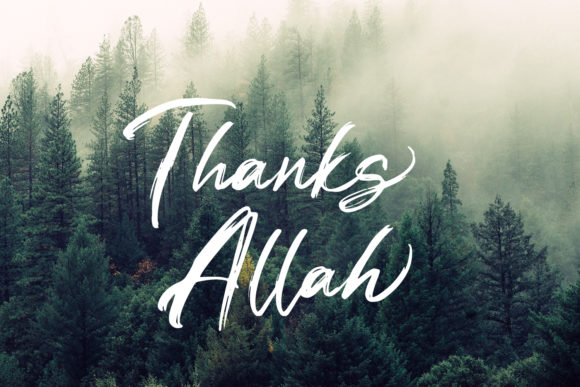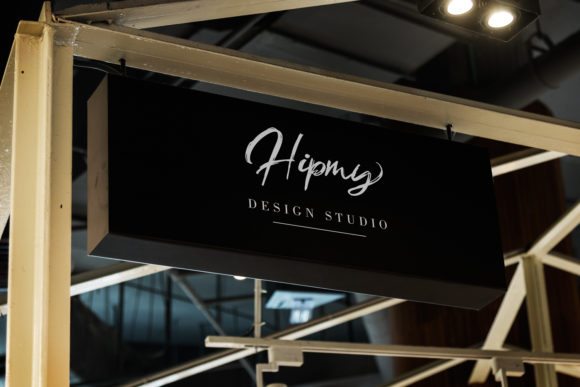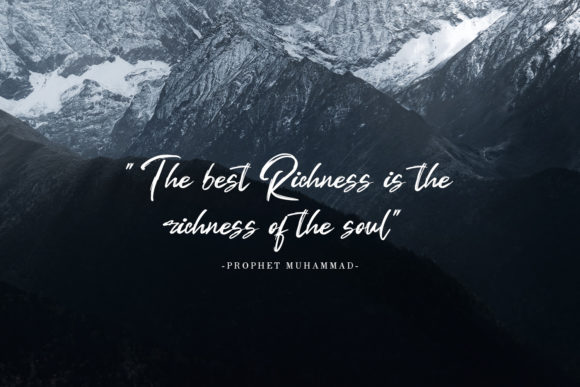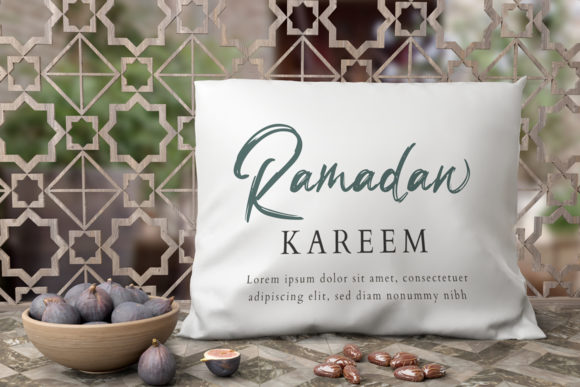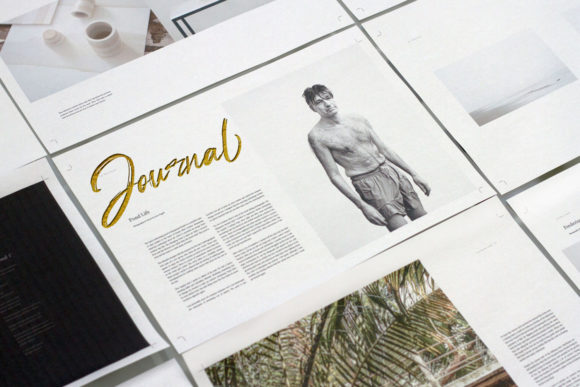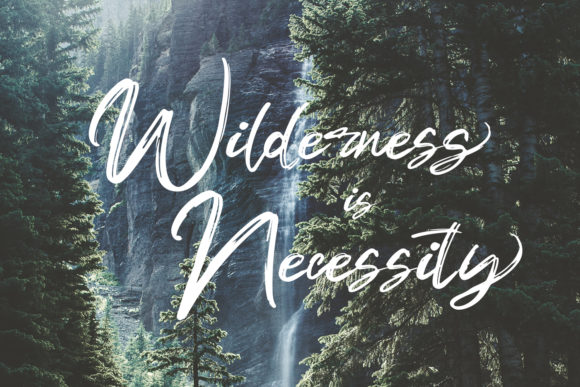
Bilal Font: Elevate Your Design with a Touch of Bold Sophistication
You’re sitting at your desk, staring at a blank canvas, and suddenly the perfect phrase pops into your head. The words flow effortlessly, and you envision the perfect typography to bring it to life. That’s when you remember Bilal Font – a stunning handwritten font that exudes a bold, contemporary vibe.
Bilal Font is more than just a font; it’s a statement piece that adds an air of sophistication to any design. With its unique lettering, it’s perfect for capturing attention and conveying a sense of coolness. Whether you’re working on a branding project, a social media campaign, or a creative blog post, Bilal Font is the perfect companion to elevate your design to the next level.
As a designer, you understand the importance of choosing the right font to convey your message. Bilal Font is a valuable addition to your toolkit, offering a refreshing alternative to traditional fonts and adding a touch of personality to your work.
Bilal Font Key Features
- Font Family: Bilal is a modern calligraphy font designed to create elegant and stylish text. It is ideal for use in logos, branding, and creative projects.
- Unique Characteristics: Bilal Font features intricate details, subtle flourishes, and elegant connections between letters, making it a standout choice for designers seeking a unique and sophisticated look.
- Language Support: Bilal Font supports a wide range of languages, including Latin, Arabic, and other scripts, making it an excellent choice for multilingual designs and projects.
Bilal Font Review
Bilal Font is a beautiful script font that catches the eye. ✨ The flowing connections and smooth lines create a sense of elegance and sophistication. It’s perfect for projects that need a touch of luxury and refinement.
- Legibility: Bilal Font is clear and readable, even at smaller font sizes. ✨ This makes it suitable for a wide range of applications, from body text to headings.
- Customization: The font comes with a variety of OpenType features, allowing for advanced typographic control. ✨ This includes ligatures, swashes, and contextual alternates.
However, Bilal Font also has some limitations. ⚠️ The font is not suitable for body text in extremely small sizes, as the lines can become too thin and difficult to read. Additionally, the font’s complexity can make it challenging to pair with other fonts, as it may clash with simpler designs.
Overall, Bilal Font is a stunning script font that excels in high-end projects. While it may not be the best choice for every situation, it’s a valuable addition to any designer’s toolkit. With its unique character and advanced features, Bilal Font is sure to make a statement in any design.
The Bilal Font is ideal for:
- Creating elegant and sophisticated designs.
- Adding a touch of Arabic or Middle Eastern flair to your designs.
- Designing business cards, letterheads, and other corporate materials.